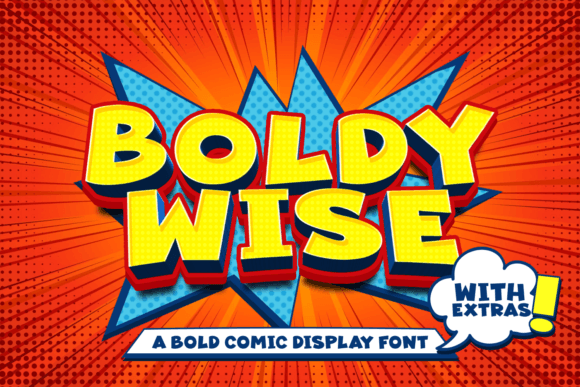
The Ultimate Display Font for Fun and Creativity: Boldy Wise
Have you ever been working on a project, and suddenly, you’re stuck on finding the perfect font? I recall a recent experience where I was designing a comic book cover, and I needed a font that was both bold and playful. That’s when I stumbled upon Boldy Wise, a fantastic display font that instantly brought my design to life. In this article, we’ll dive into the world of Boldy Wise, exploring its features, uses, and everything in between.
A Personal Review of Boldy Wise
What I Love About Boldy Wise ✨
- 💥 **Bold and comic design**: Boldy Wise is perfect for projects that require a touch of humor and fun, making it ideal for comic books, cartoons, and playful designs.
- ✅ **Easy to read**: Despite its bold and chunky shapes, the font remains highly legible, even at smaller sizes.
- 🎨 **Highly versatile**: Use Boldy Wise for a wide range of projects, from posters and flyers to digital graphics and comics.
- 🔥 **PUA encoded**: With PUA encoding, you can access all the delightful glyphs and swashes effortlessly, making it easy to add a personal touch to your designs.
While Boldy Wise is an excellent font, there are a few minor limitations to consider:
- 🤔 **Limited use cases for formal designs**: Due to its bold and playful nature, Boldy Wise might not be the best fit for formal or professional projects that require a more serious tone.
- ⚠️ **May not work well at very small sizes**: While the font is legible, it may lose some of its charm when used at very small sizes (e.g., below 10-12 points).
The Backstory of Boldy Wise
Boldy Wise was designed with the intention of creating a font that was both bold and playful. The designer aimed to craft a font that would bring a sense of fun and humor to various projects, from comic books to digital graphics. With its thick and chunky shapes, quirky design, and PUA encoding, Boldy Wise has become a go-to font for designers looking to add a touch of personality to their work.
Q: What is PUA encoding, and how does it benefit Boldy Wise?
A: PUA (Private Use Area) encoding allows designers to access a range of glyphs and swashes that are not available in standard fonts. In the case of Boldy Wise, PUA encoding makes it easy to add a personal touch to your designs.
Q: Is Boldy Wise suitable for body text?
A: While Boldy Wise is a great font, it’s not ideal for body text due to its bold and playful nature. It’s best suited for headings, titles, and short paragraphs.